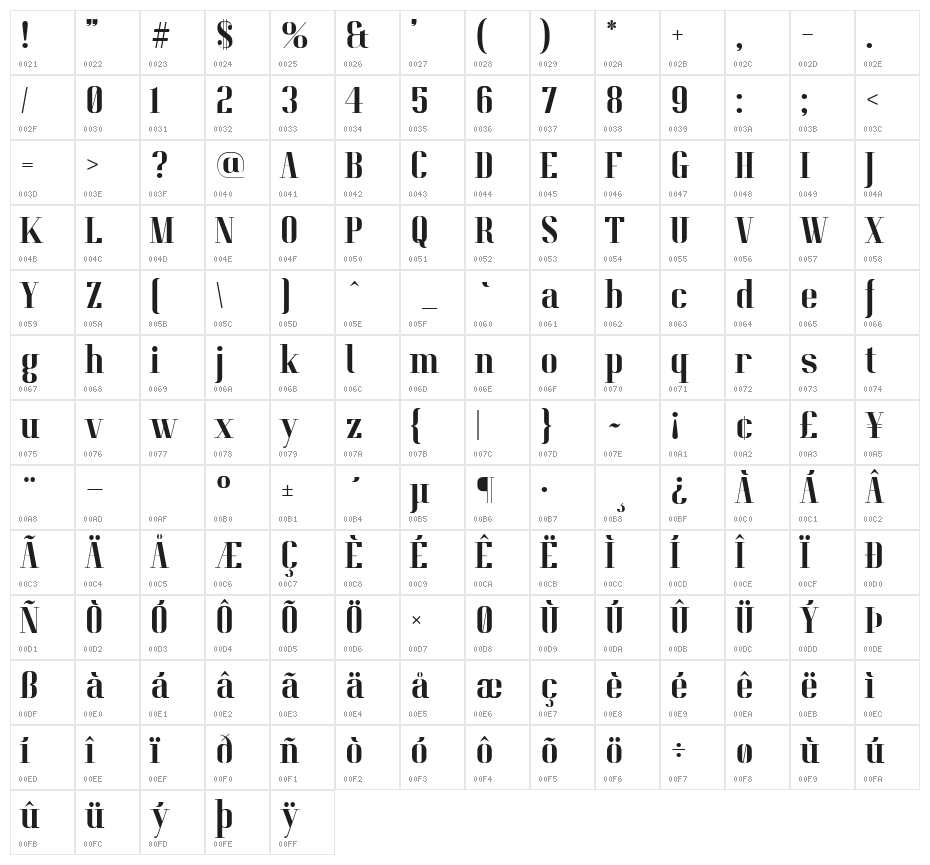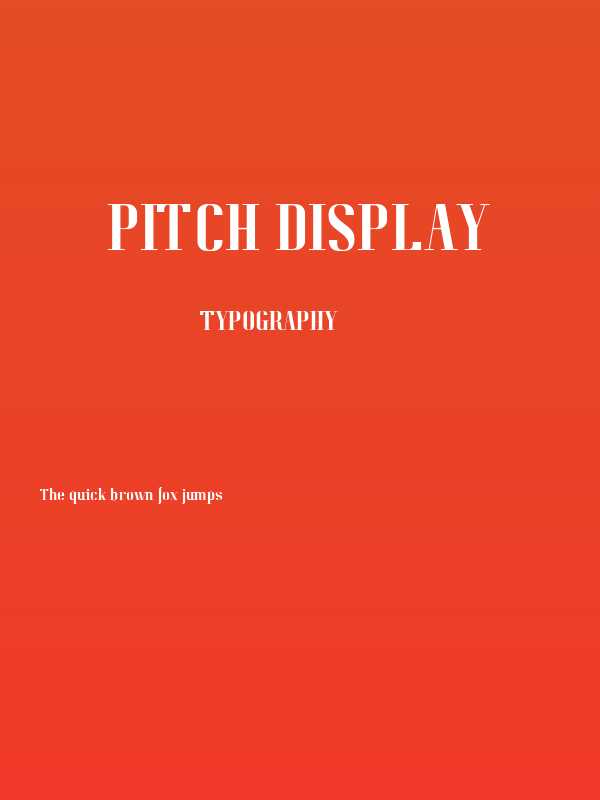
Pitch Display Font
Pitch Display Description
This font features a bold and striking design with high contrast between thick and thin strokes, giving it a dramatic and impactful appearance. The uppercase letters are tall and commanding, while the lowercase letters maintain a consistent style with slightly rounded edges. The numerals are clear and legible, designed to stand out with their bold structure. Special characters are crafted with attention to detail, ensuring they complement the overall aesthetic. This font is ideal for making a strong visual statement.
Proposed ProjectsIdeal for headlines, posters, branding, and any project requiring a strong visual impact.